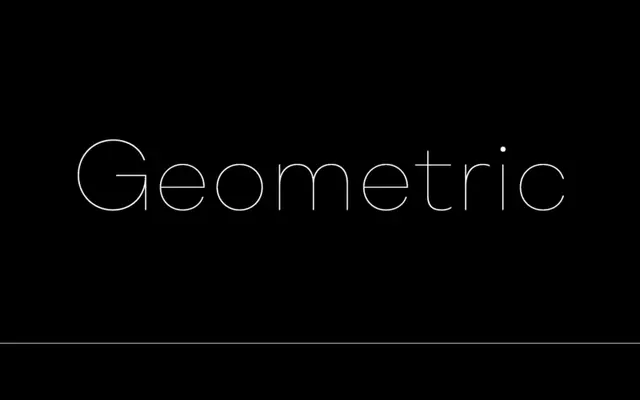
Shape
The Designers Foundry · Christoph York
A contemporary geometric sans in 18 styles by Christoph York, spanning Hairline to Super with matching italics throughout.
Designed by Berlin and London-based Christoph York, Shape is a geometric sans built around an open, content-first aesthetic with a subtle warmth to its construction. Nine weights from Hairline to Super are paired with corresponding italics, giving the family broad range for both display and text applications. OpenType features include discretionary ligatures, case-sensitive forms, tabular figures and alternate characters for g and y.
The foundry explicitly describes Shape as a contemporary geometric type family built with precision and simplicity, consistent with the geometric sans-serif tradition of circular, constructed letterforms.